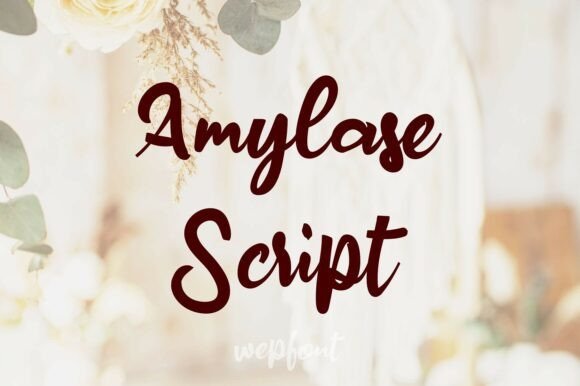
When Words Become Art: The Enchanting Amylase Script Font
Imagine you’re planning a wedding, and you need to create the perfect invitation that sets the tone for a lifetime of love and happiness. As you sit down to write, you find yourself drawn to a beautiful, handwritten script that seems to dance across the page. This is the magic of the Amylase Script Font – a stunning typeface that adds a touch of elegance and romance to any design project.
As a designer, you know the importance of choosing the right font to convey your message and evoke the desired emotions. The Amylase Script Font is a valuable addition to any designer’s toolkit, offering a unique blend of sophistication and whimsy that’s perfect for special occasions. Whether you’re creating a wedding invitation, a greeting card, or a premium product package, this font is sure to leave a lasting impression.
Amylase Script Font Key Features
- Font Family: Amylase Script, Amylase Script Regular, Amylase Script Italic, Amylase Script Bold, Amylase Script Bold Italic
- Unique Characteristics: The Amylase Script font features a handwritten, cursive style with a mix of elegant and casual elements, making it perfect for creative and artistic designs.
Designer Review: Amylase Script Font
Overall, I think the Amylase Script Font is a decent choice for certain projects, but it may not be the perfect fit for everyone. Let’s dive into what works well and what doesn’t.
- Unique style: The Amylase Script Font has a distinct, hand-written feel that can add a touch of personality to your designs.
- Legibility: Despite its script style, the font is still relatively easy to read, making it suitable for body text and short paragraphs.
- Customization options: The font comes with a range of ligatures and swashes, allowing you to customize its appearance to fit your design needs.
- Limited character set: The Amylase Script Font only includes a basic character set, which may not be suitable for complex or technical content.
- Overuse potential: The font’s unique style can be overwhelming if used excessively, so be mindful of its placement in your design.
- No support for languages with complex scripts: Unfortunately, the font is not optimized for languages like Chinese, Japanese, or Arabic.
The Amylase Script Font is a good choice for projects that require a touch of elegance and personality, but it may not be the best fit for more complex or technical content. With careful use and customization, it can be a valuable addition to your design toolkit.
Use the Amylase Script Font for creative projects that require a unique, handwritten feel. It’s perfect for wedding invitations, birthday cards, and other special occasions. Experiment with different font sizes, colors, and styles to create a visually appealing design.